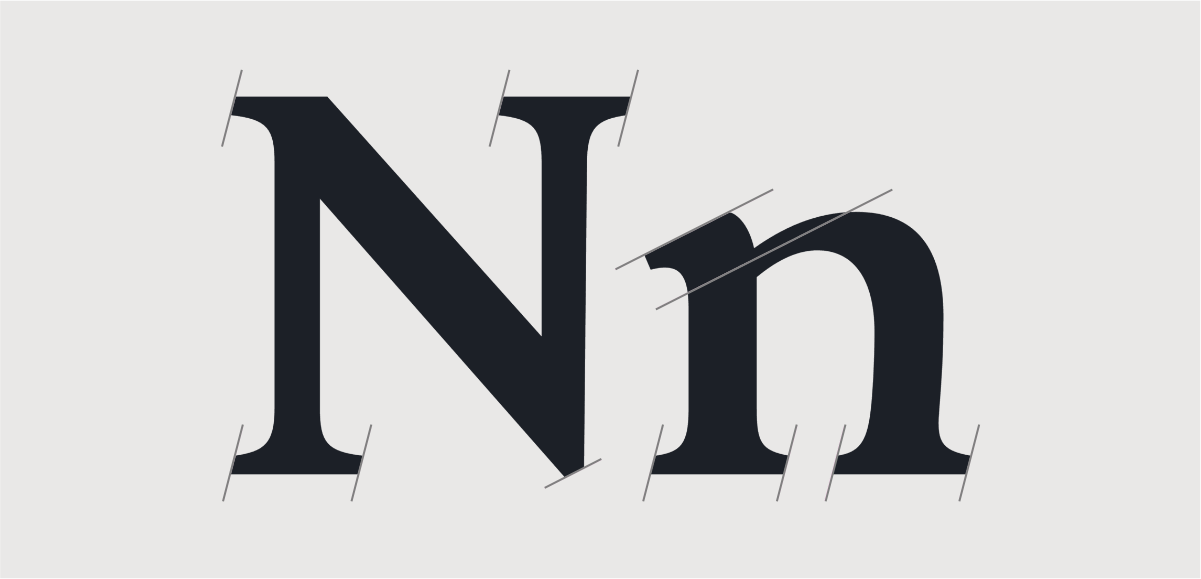
The Avona family of fonts are heavily influenced by calligraphy and the broad nib pen, and were originally created to create a fantasy visual tone. Dive into the thought process behind what made these letterforms as unique and charismatic as they are.
Please read in your best dramatic movie trailer voice: In the beginning, they were forged from the ideals of the fantasy genre. They came from a place where magic is practiced, dangers and deities lurk in the unknown, and life is vastly different from what we are used to. They were created from the act of plunging ourselves into another world to escape from this reality. They were born from myth, legend, lore, and our collective imagination. They came from another universe known as Fantasy.
The idea for Avona came out of discussions with my husband about video game typography. During our time playing video games together we had both noticed that many often lacked good typography, especially in the fantasy genre. When we took a closer look, typographical choices ranged from games using fonts that were very stylized and sacrificed functionality to games using a functional font that didn’t add any atmosphere to the game. There are a few that get it right and when that happens, the immersion feels magical. See this article for a general overview of the effectiveness of video game typography
Searching for “fantasy font” brings up a lot of options that are overly decorative and pretty much unusable for the demands of user interfaces. This leaves very few choices that add a fantasy visual tone while remaining functional. The type designer part of me saw this as a fun challenge and so I set out to capture the essence of fantasy in a typeface that would also meet the demands of good user interface typography.
How did I go about capturing the fantasy genre in a typeface? I began with a question, “if a typeface were magicked into existence, what would it look like?”
Imagine if a wizard conjured a document. What determines the look of the letters on the page? Does the magic draw from the wizard’s own knowledge and imagination, or does the spell itself contain the DNA that determines the letterforms? In the case that the wizard’s own knowledge contributes to letterform characteristics, the letters are going to be influenced by the culture and world around said wizard.
So what does this world look like? It’s likely pre-industrial because who needs technology when you can just magic things into existence. There are probably not very many printing presses so day-to-day samples of writing would be calligraphic or written. If this world follows a similar pattern of typeface development to our current reality it puts it somewhere in the realm of early letterpress.
Again referencing the history in our own reality, written forms developed from the writing tools available and the culture surrounding the scribes who wielded them. For this project I referenced Carolingian minuscule as a foundation for my forms for a couple reasons.
The first was just a gut feeling that these letter-shapes were connected to an ancient magic—if it ever existed in our reality. It was derived from scripts used in England and Ireland which are areas close to the setting of Arthurian Legends and the Pagan belief system.
The second reason was because Carolingian minuscule forms are very circular and rounded, which—in works of modern fantasy—is an often-repeated shape in relation to the arcane.
The Third reason is that Carolingian script is also very closely related to modern letter forms making it very understandable for modern readers.
Research highlight, I had the pleasure of visiting the Letterform Archive in San Francisco and seeing a sample of Carolingian minuscule from the 9th century in person, pretty neat!
New letter designs are based on the forms that came before. Calligraphy turned into typeface designs, which were then built upon and changed many times over. For this project, I felt that it was important to return to the calligraphy and try to create modern-looking letterforms straight from that. My process was not devoid of referencing historical samples from the humanist genre (typefaces that are transitional from calligraphy to typeface) but I tried not to rely on them too much. I wanted these forms to have their own growth and trajectory from that calligraphic starting place.
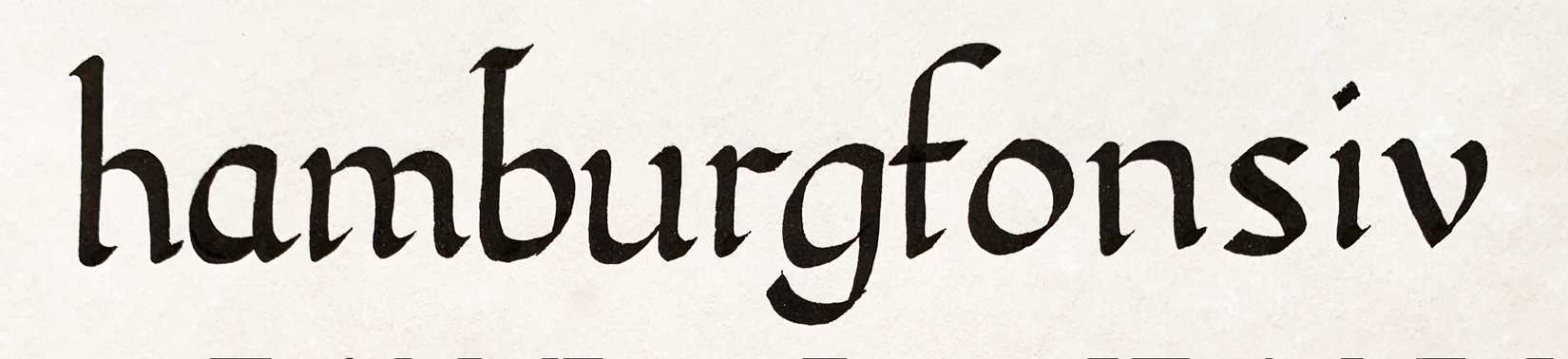
The obvious place to start was to try out some Carolingian calligraphy. It was useful for getting a better understanding of the shapes but I certainly wasn’t going to get any great samples to work from my unskilled hands. I studied some other calligrapher’s work and then moved on to sketching. These helped me decide on some guiding principles like flowing in and out of a line but having a straight section in the middle. I also wanted to make the traditional 30° pen angle very obvious in terminals and crossbars.
I moved pretty quickly into vector drawings after that and the shapes changed quite a bit over the nearly 3 years I worked on it. In June 2018, the shapes were very calligraphic and as I refined proportions and terminals it became more regular. A big change happened in February of 2020 where the stem became very straight and the terminals very thick which I decided was a bit too far away from the calligraphic foundation.